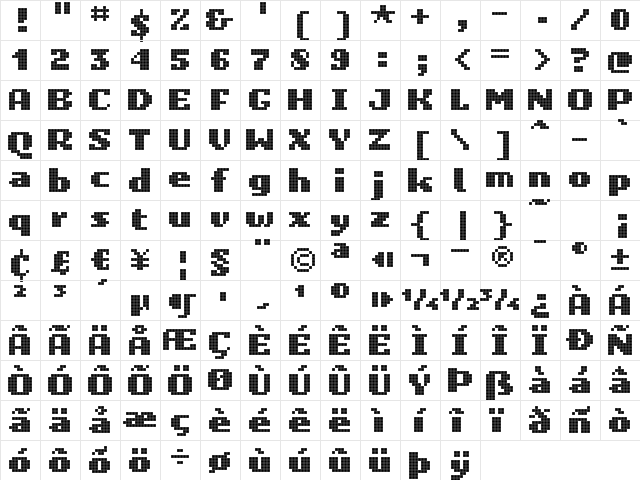
Unibody 8 Black
Design Context for Unibody 8 Typeface
Unibody 8 is a composed and adaptable typeface that performs quietly and consistently across a wide range of design contexts.